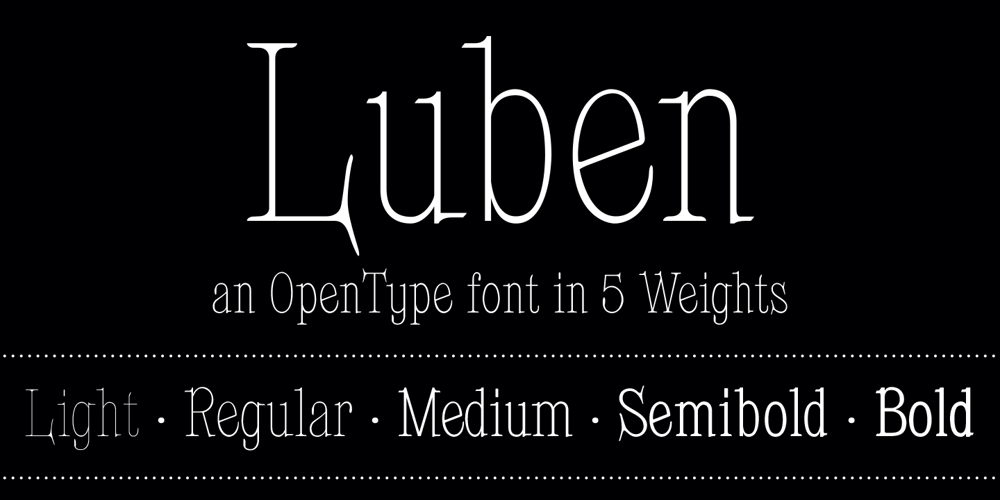
Luben Font Family was designed by Paul Smith and published by Octopi. Luben contains 5 styles and family package options. Luben is a quirky serif font in five weights. The high x height gives it excellent readability and the curves give it a kind of retro feel.